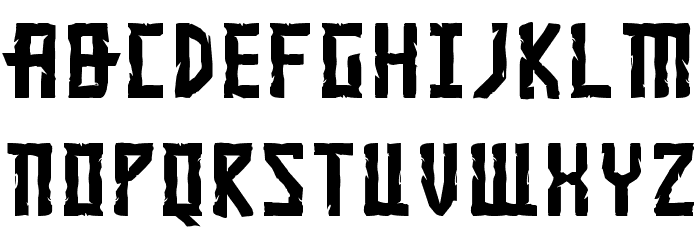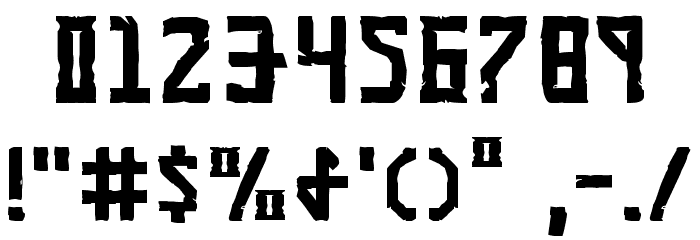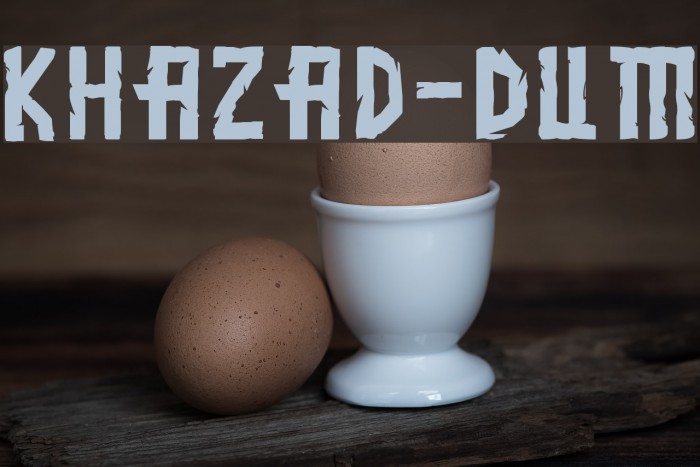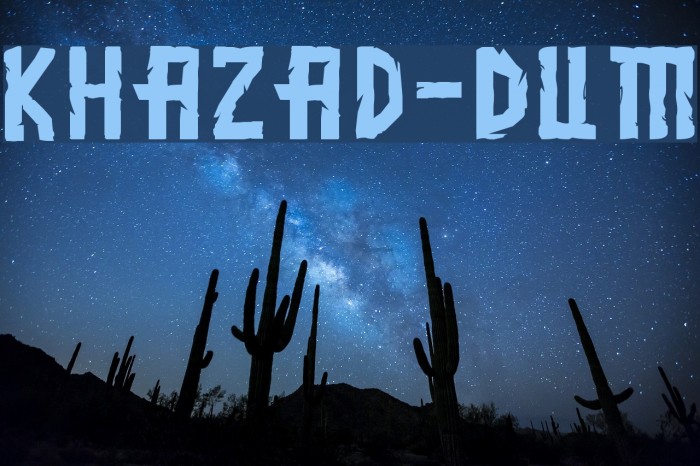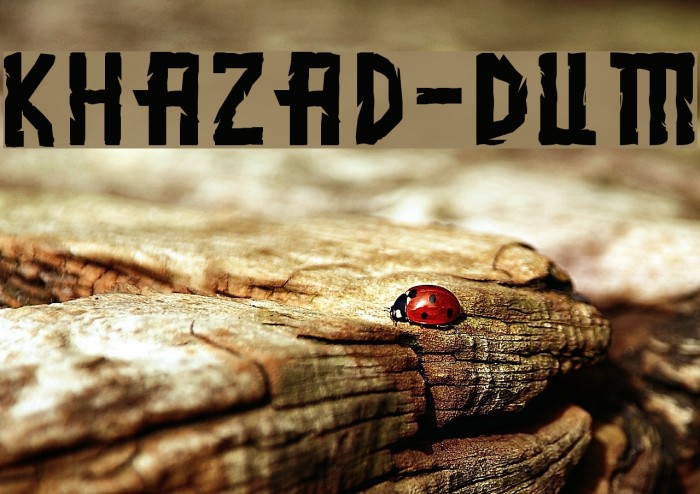
Khazad-Dum Font
This font features a rugged, angular design that evokes a sense of ancient, carved stone. The characters are bold and heavily stylized, with sharp edges and a blocky appearance that suggests strength and durability. The uppercase and lowercase letters maintain a consistent style, with a uniform height and width that enhances readability while preserving the font's distinctive character. Numbers and special characters are crafted with the same attention to detail, ensuring a cohesive look across all text elements. The font's unique aesthetic makes it ideal for projects that require a touch of fantasy or historical depth, such as themed posters, game titles, or book covers.
A bold, angular font with a rugged, ancient stone-carved appearance.
- Font: Khazad-Dum
- Proposed Projects: Ideal for fantasy-themed posters, game titles, book covers, and other creative projects requiring a historical or mythical touch.